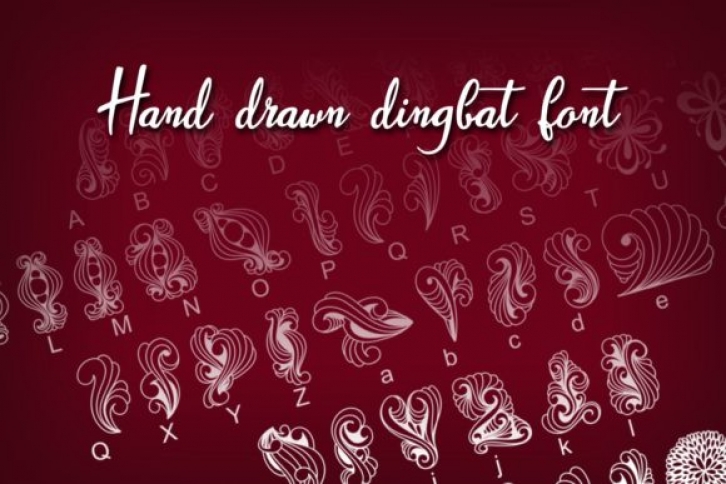
Dings is a beautiful hand-drawn dingbat font. It will add a unique look to yourcrafting projects!
Characters are as it is shown in the example, just type A-Z, a-z letters or numbers on keyboard.